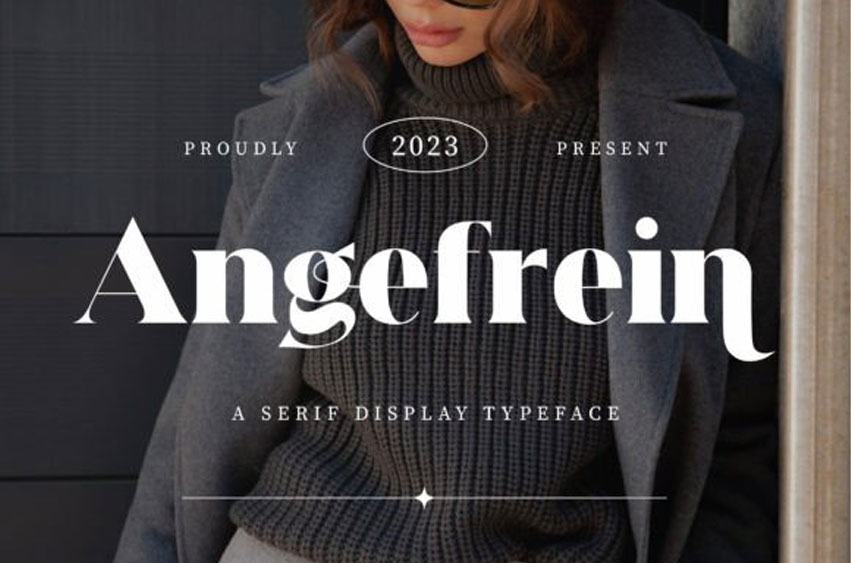
Angefrein Font is a serif display typeface that combines elegance with bold presence, perfect for making a sophisticated statement in your designs.
With its refined and distinctive letterforms, “Angelfrein” adds a touch of classic beauty to any project. Each character is meticulously crafted to strike the perfect balance between timeless elegance and modern appeal, making it ideal for luxurious branding, eye-catching headlines, editorial layouts, and more.
Embrace the commanding presence of “Angelfrein” as it effortlessly enhances your designs. Whether you’re creating prestigious logos, captivating posters, editorial masterpieces, or elegant social media graphics, this font will captivate your audience with its serif and display style.
Step into a world of refined typography with “Angelfrein” and let your designs speak with grace and authority.